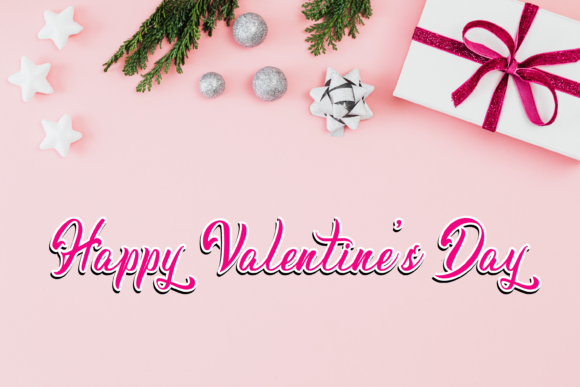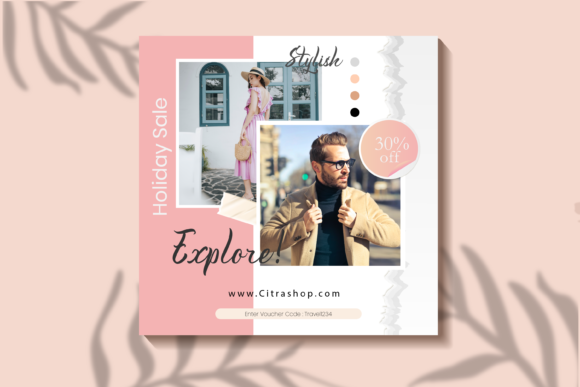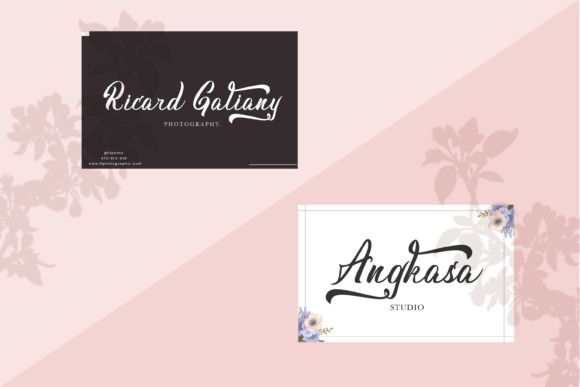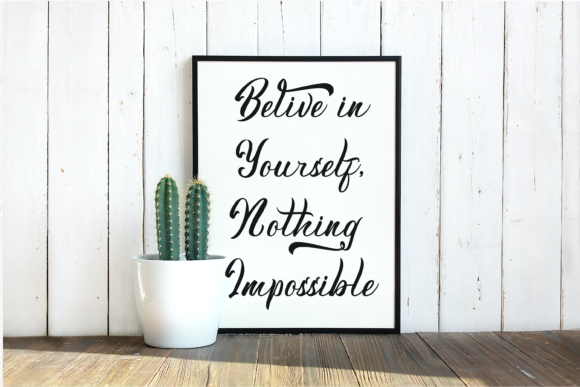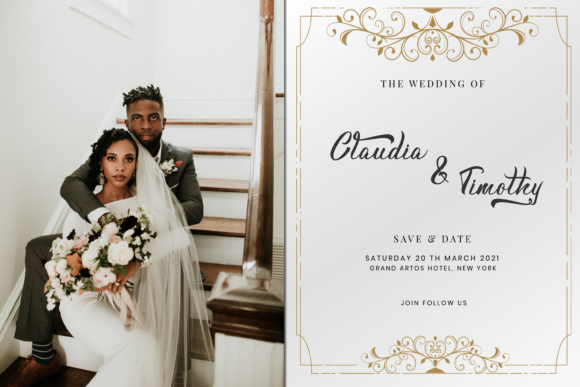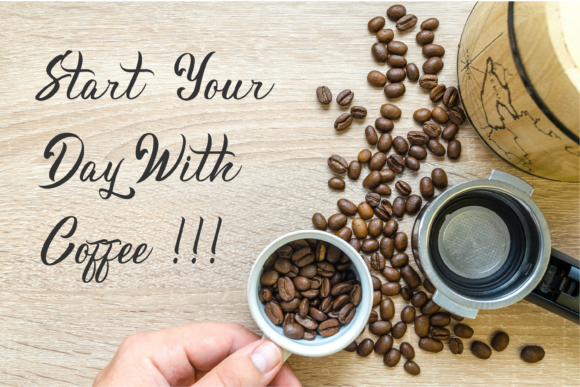
The Elegance of Dilovany Font: A Designer’s Delight
Have you ever been in the middle of a design project, and suddenly, you’re stuck on finding the perfect font? I recall a recent experience where I was working on a branding project for a luxury client, and my go-to fonts just weren’t cutting it. The design needed something elegant, yet modern; something that would elevate the brand’s image without being too over-the-top. That’s when I stumbled upon the Dilovany Font, and let me tell you, it was love at first sight! 💕
An Honest Review of Dilovany Font
As a designer, I’m always on the lookout for fonts that not only look great but also offer flexibility and functionality. Here’s my take on what I love about Dilovany Font and a few quirks to keep in mind:
- ✨ Elegant and Modern: Dilovany Font strikes the perfect balance between classic calligraphy and contemporary design. It’s not too thin, not too thick – it’s just right! 🤩
- ✅ Balanced and Varied: The font comes with a range of weights and styles, making it versatile for various design projects, from branding to wedding invitations.
- 🌟 Impeccable Form: The attention to detail in Dilovany Font is impressive. The curves, the lines, the spacing – everything is meticulously crafted to create a seamless reading experience.
Now, no font is perfect, and here are a few things to consider:
- 🤔 Limited Multilingual Support: While Dilovany Font covers a decent range of languages, it might not support every language or character set you need. Double-check the character map before committing to a project.
- ⚠️ Some Ligatures Can Be Finicky: I’ve noticed that certain ligatures can be a bit hit-or-miss, especially when using the font at smaller sizes. Experiment with different settings to find what works best for your design.
The Backstory of Dilovany Font
While the origins of Dilovany Font might be shrouded in mystery, it’s clear that the designer aimed to create a font that embodies both timeless elegance and modern sophistication. Inspired by classic calligraphy, Dilovany Font brings a touch of luxury to any design project.
| Is Dilovany Font suitable for body text? | While Dilovany Font is elegant and highly readable, it’s best used for headings and titles due to its script nature. For body text, consider a more straightforward font. |
| Does Dilovany Font support multiple languages? | Dilovany Font offers a decent range of language support, but it’s essential to review the character map to ensure it covers your project’s language requirements. |
In conclusion, Dilovany Font is a stunning addition to any designer’s toolkit. Its elegant, modern appeal and versatile features make it perfect for a wide range of projects. Whether you’re working on a luxury brand identity, a wedding invitation, or a personal craft project, Dilovany Font is sure to elevate your design to new heights.